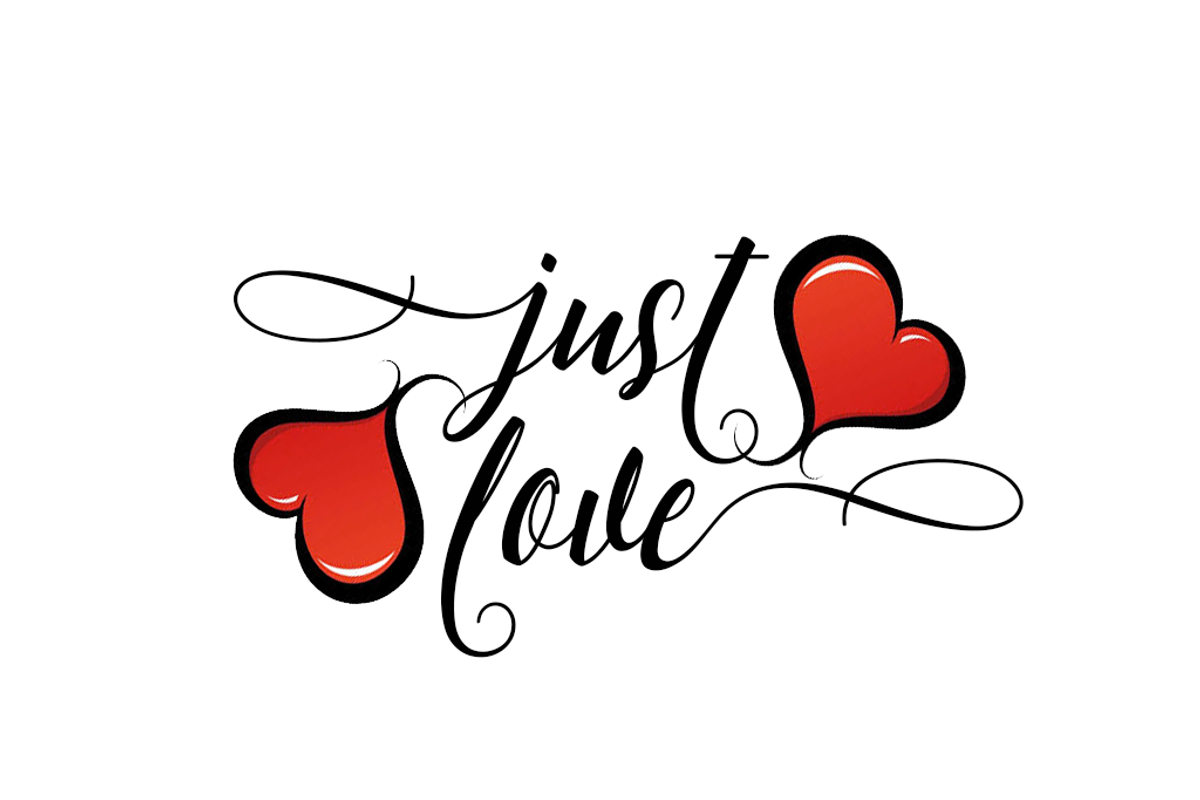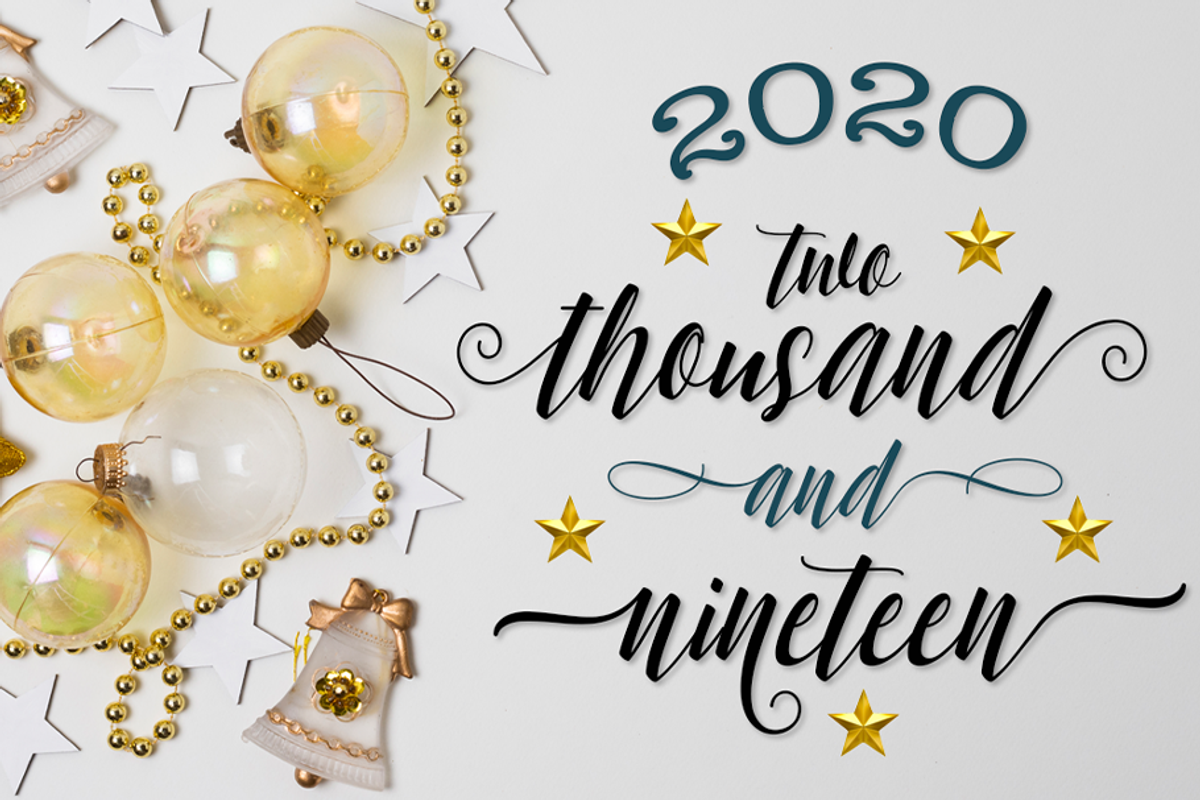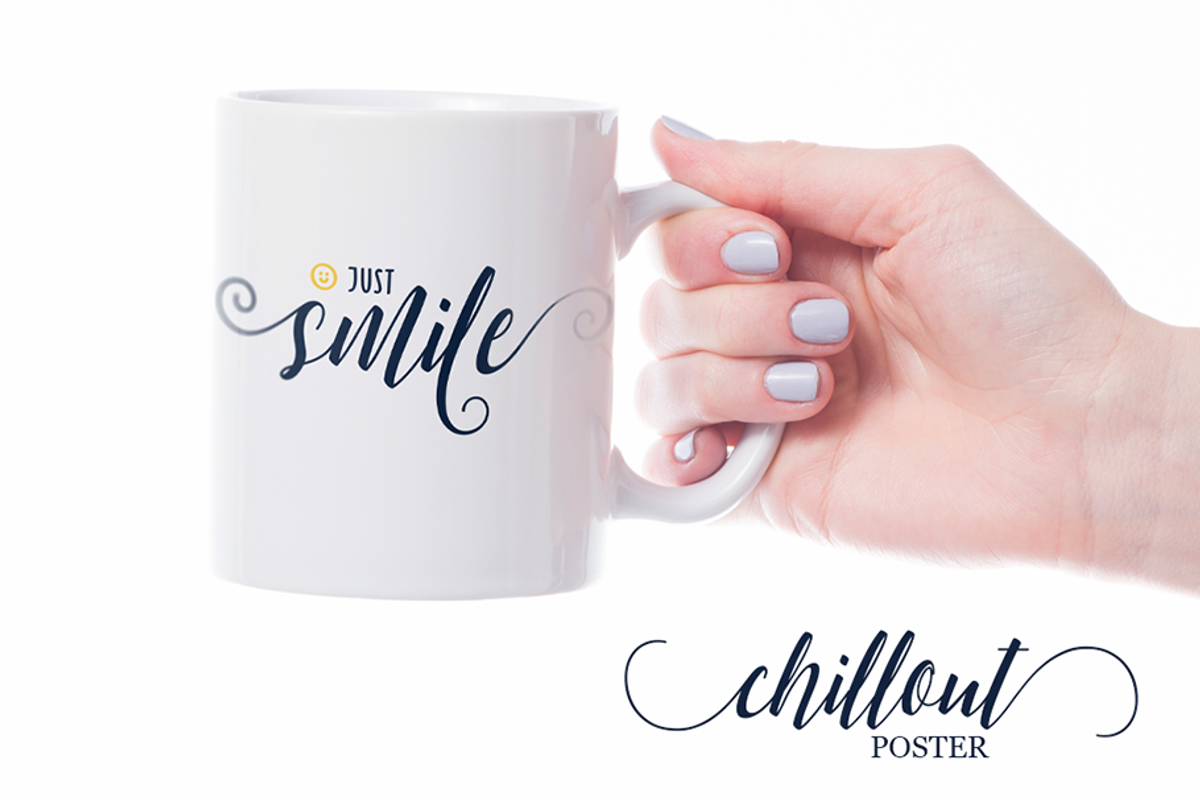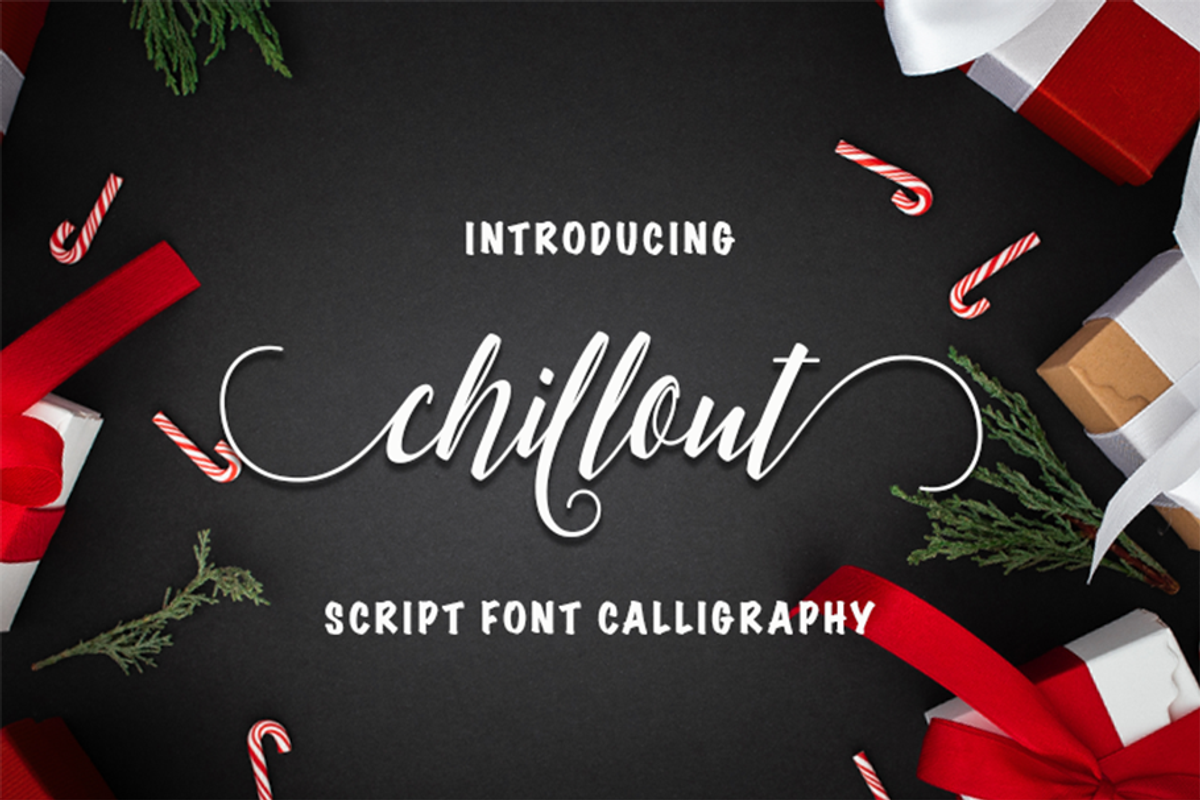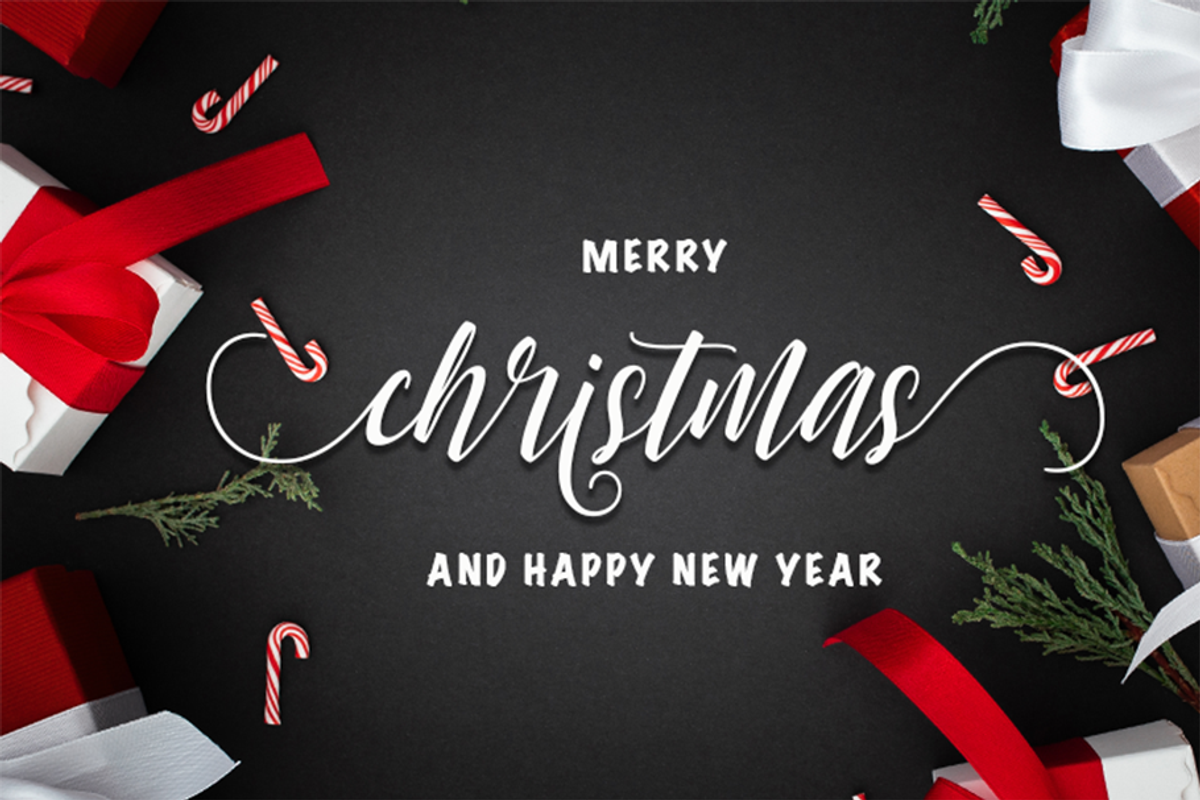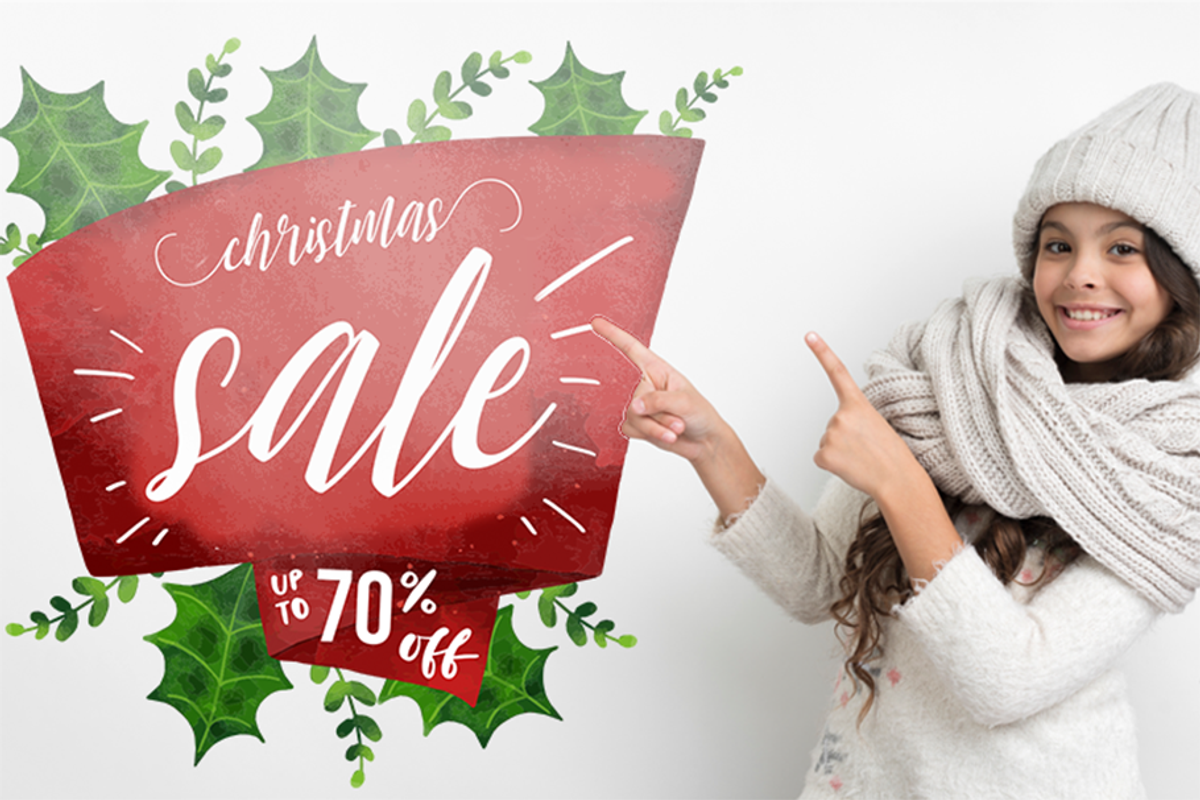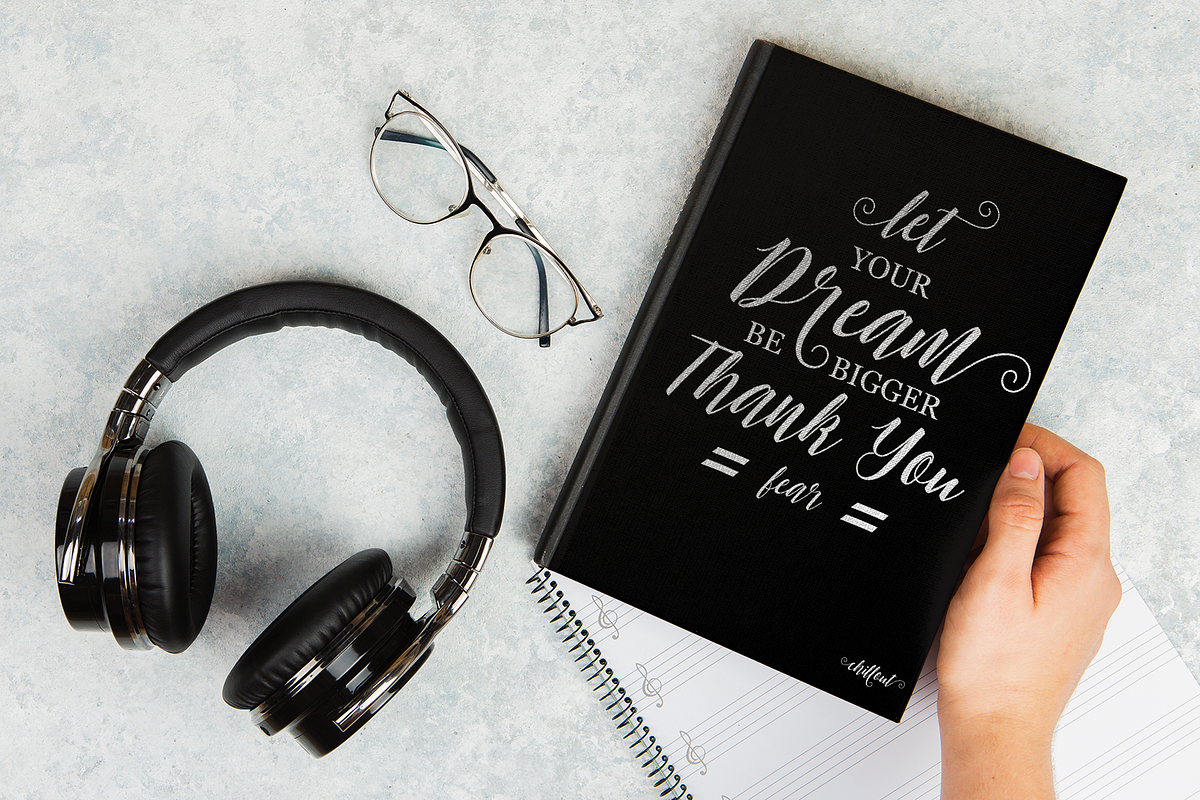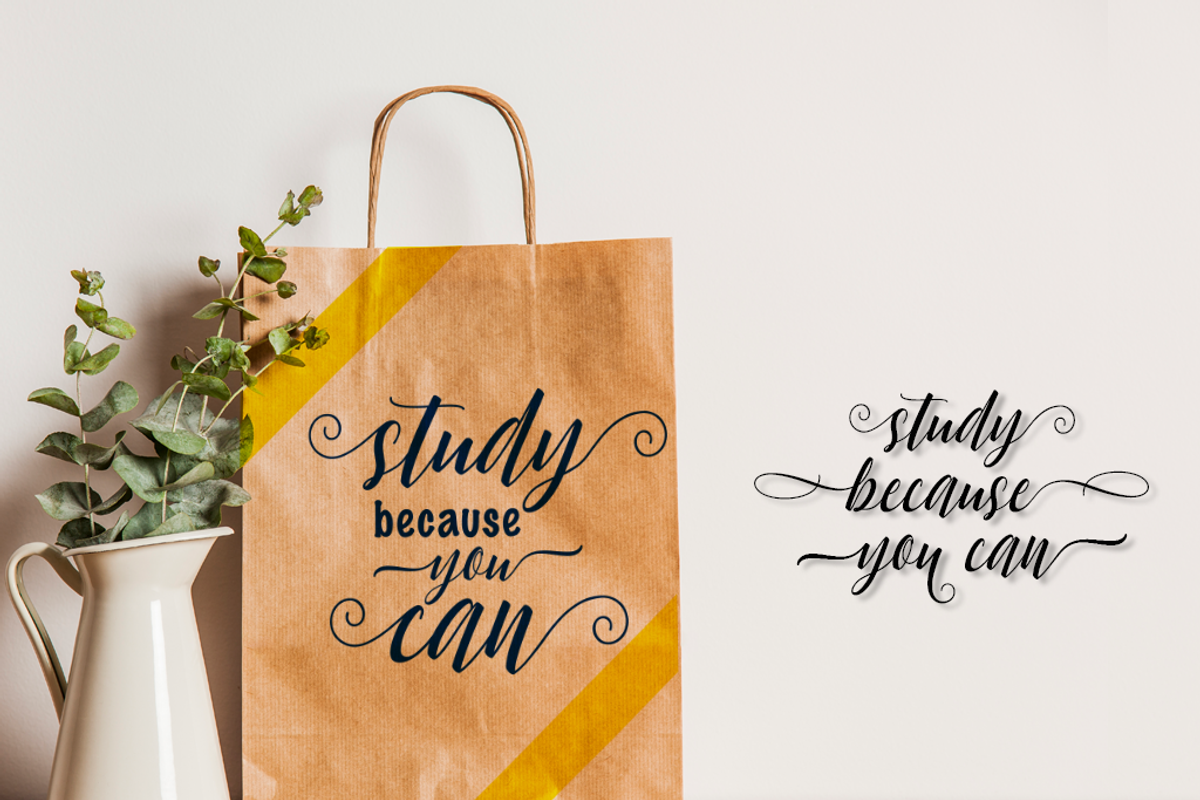
Chillout Script Font
Chillout Scriptis Modern calligraphy fonts, combines from copperplate to contemporary typeface with a dancing baseline, classic and elegant touch. Can be used for various purposes.such as headings, signature, logos, wedding invitation, t-shirt, letterhead, signage, lable, news, posters, badges etc.
Chillout Script come with 502 glyphs. The alternative characters were divided into several Open Type features such as Swash, Stylistic Sets, Stylistic Alternates, Contextual Alternates. The Open Type features can be accessed by using Open Type savvy programs such as Adobe Illustrator, Adobe InDesign, Adobe Photoshop Corel Draw X version, And Microsoft Word. And this Font has given PUA unicode (specially coded fonts). so that all the alternate characters can easily be accessed in full by a craftsman or designer.
Chillout Script : Uppercase, Lowercase International Languange, Symbols Support Punctuation, Number PUA Unicode Range Standard Stylistic Alternates Stylistic Set 1-10 Character Variant Contextual.
Why Chillout Script Font is worth a look
Chillout Script Font by Graphic Deal fits naturally into Branding, posters, packaging, typography.